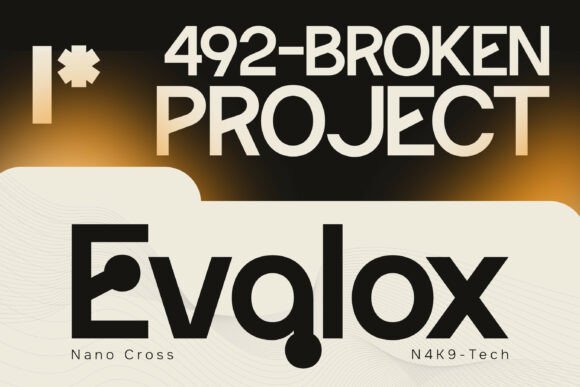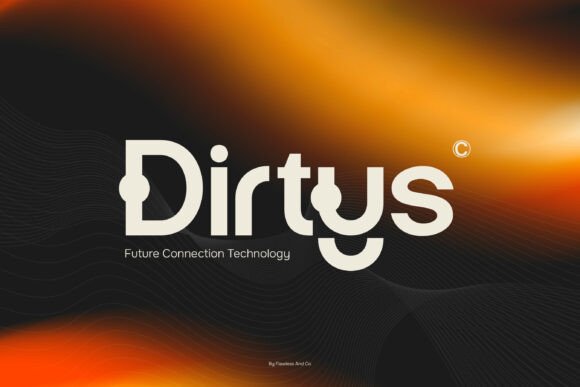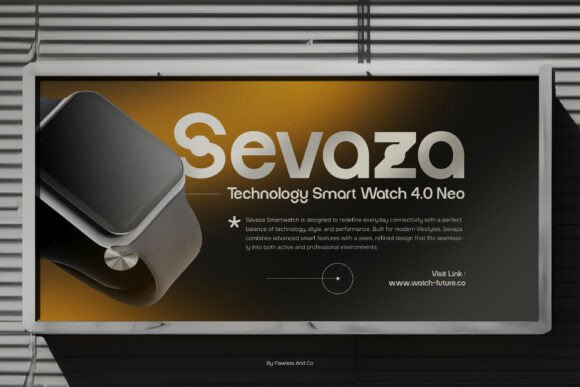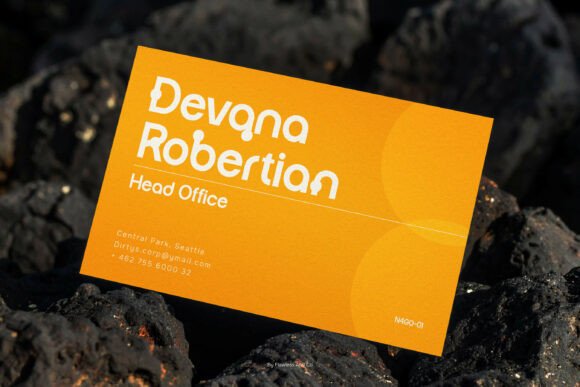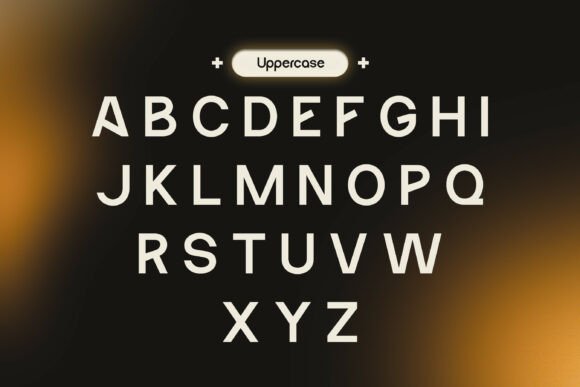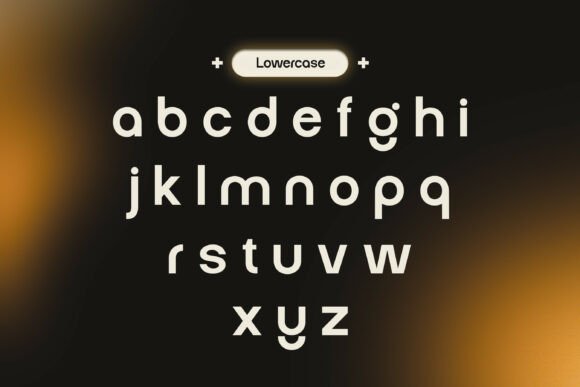
Gevora Font: Elevate Your Brand with a Modern Corporate Display Font
In the world of typography, a well-crafted font can make all the difference in establishing a brand’s visual identity. Gevora Font is a modern corporate display font designed to deliver a clean, professional, and confident aesthetic. With its structured letterforms and balanced proportions, Gevora creates a strong impression of clarity and reliability, perfect for brands that want to communicate trust and sophistication.
The Design Philosophy Behind Gevora
Gevora’s design is rooted in the principles of modern typography, with a focus on simplicity, legibility, and versatility. The font’s clean lines, precise curves, and balanced proportions create a sense of stability and professionalism, making it an ideal choice for brands that want to project a confident and trustworthy image.
One of the key features of Gevora is its structured letterforms, which are designed to convey a sense of order and precision. Each letter is carefully crafted to ensure that it is easily recognizable, even at small sizes, making Gevora a versatile font that can be used across a range of applications, from digital displays to print materials.
Key Characteristics of Gevora Font
- Clean and Professional Design: Gevora’s modern design ensures that it looks sleek and professional in any context, making it perfect for use in corporate branding, advertising, and marketing materials.
- Balanced Proportions: The font’s balanced proportions create a sense of harmony and stability, which is essential for establishing trust with your audience.
- Structured Letterforms: Gevora’s structured letterforms are designed to convey a sense of precision and order, making it ideal for brands that want to communicate a sense of reliability and sophistication.
- Legibility: Gevora is designed to be highly legible, even at small sizes, making it a versatile font that can be used across a range of applications.
Why Choose Gevora Font?
There are many fonts available that claim to offer a professional and modern aesthetic, but Gevora stands out from the crowd. Here are just a few reasons why designers and crafters are choosing Gevora for their branding and design projects:
- Uniqueness: While Gevora is a modern font, it has a unique character that sets it apart from more traditional fonts. Its clean lines and structured letterforms create a distinctive look that is both memorable and impactful.
- Versatility: Gevora is a highly versatile font that can be used across a range of applications, from digital displays to print materials. Its legibility and clarity make it perfect for use in body text, headings, and titles.
- Easy to Pair: Gevora is designed to be easy to pair with other fonts, making it a great choice for designers who want to create a cohesive brand identity.
Using Gevora Font in Your Design Projects
Gevora is a highly versatile font that can be used in a wide range of design projects, including:
- Branding and Identity: Use Gevora to create a professional and modern brand identity that communicates trust and sophistication.
- Advertising and Marketing: Gevora’s clean lines and structured letterforms make it perfect for use in advertising and marketing materials, such as brochures, flyers, and social media graphics.
- Web Design: Gevora is a great choice for web design projects, where its legibility and clarity can help to create a positive user experience.
In conclusion, Gevora Font is a modern corporate display font that offers a clean, professional, and confident aesthetic. Its structured letterforms, balanced proportions, and high legibility make it perfect for brands that want to communicate trust and sophistication. Whether you’re a designer or crafter, Gevora is a great choice for your branding and design projects.